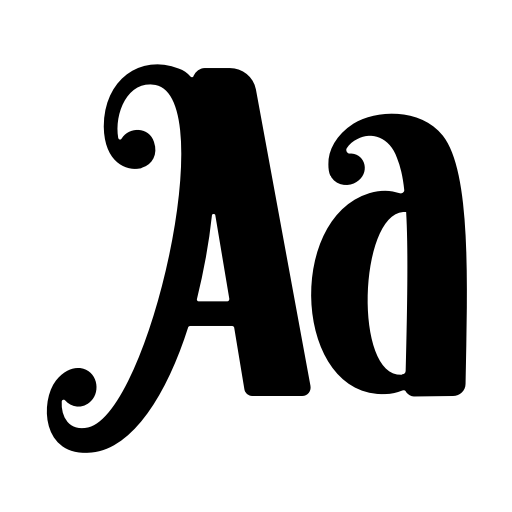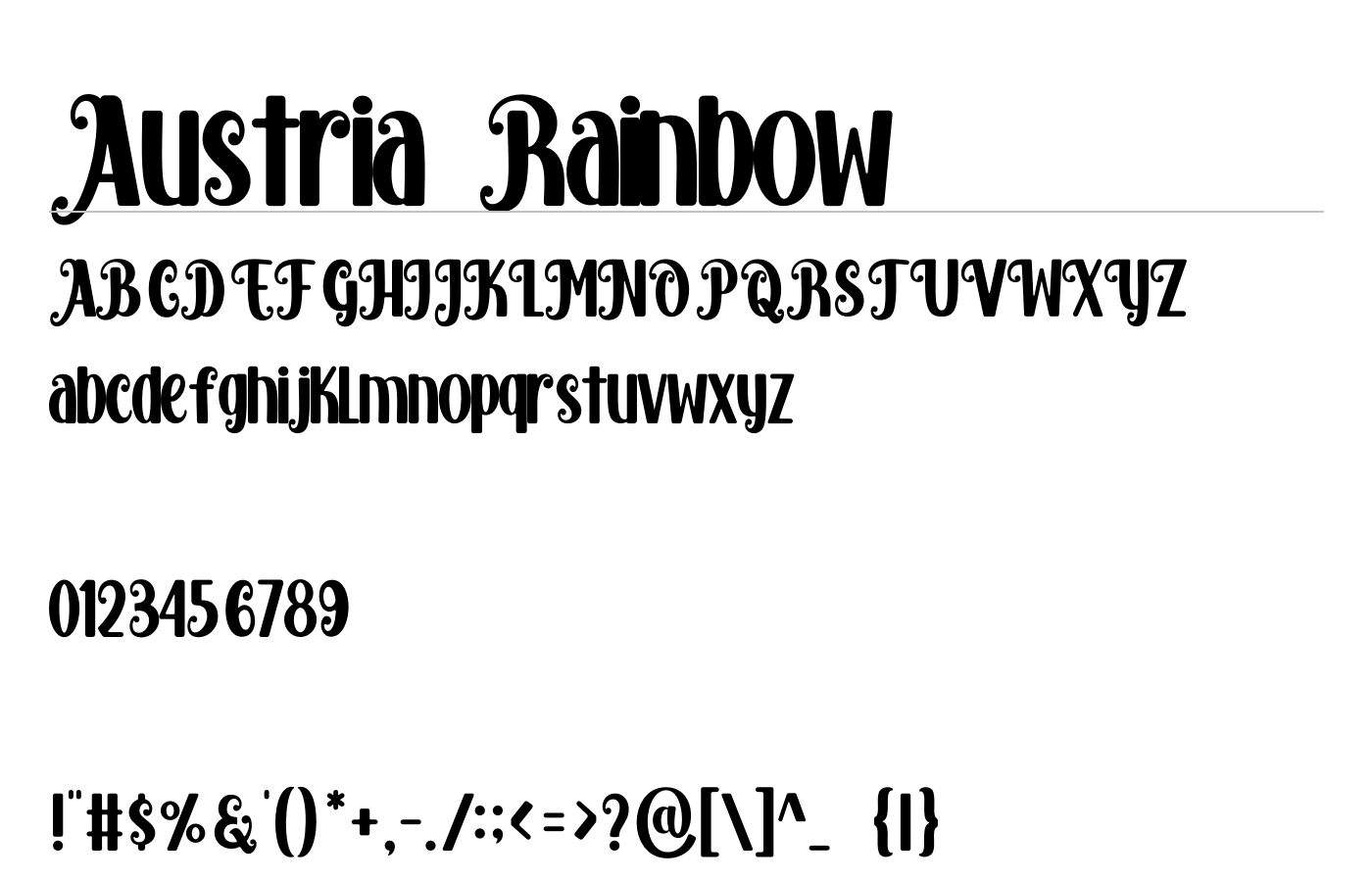
Austria Rainbow is a bold, condensed serif font with a playful and vintage feel, featuring high contrast strokes and unique curly details on select characters that add personality and charm. Its tall x-height and decorative style make it perfect for eye-catching headlines, logos, and creative packaging that want to convey a fun yet classy mood. This font stands out in designs aiming for a retro or whimsical touch with strong, memorable character.
Austria Rainbow Font
About Austria Rainbow Font
| Font family | Austria Rainbow Font |
| Designer | Hamber Perdiansyah |